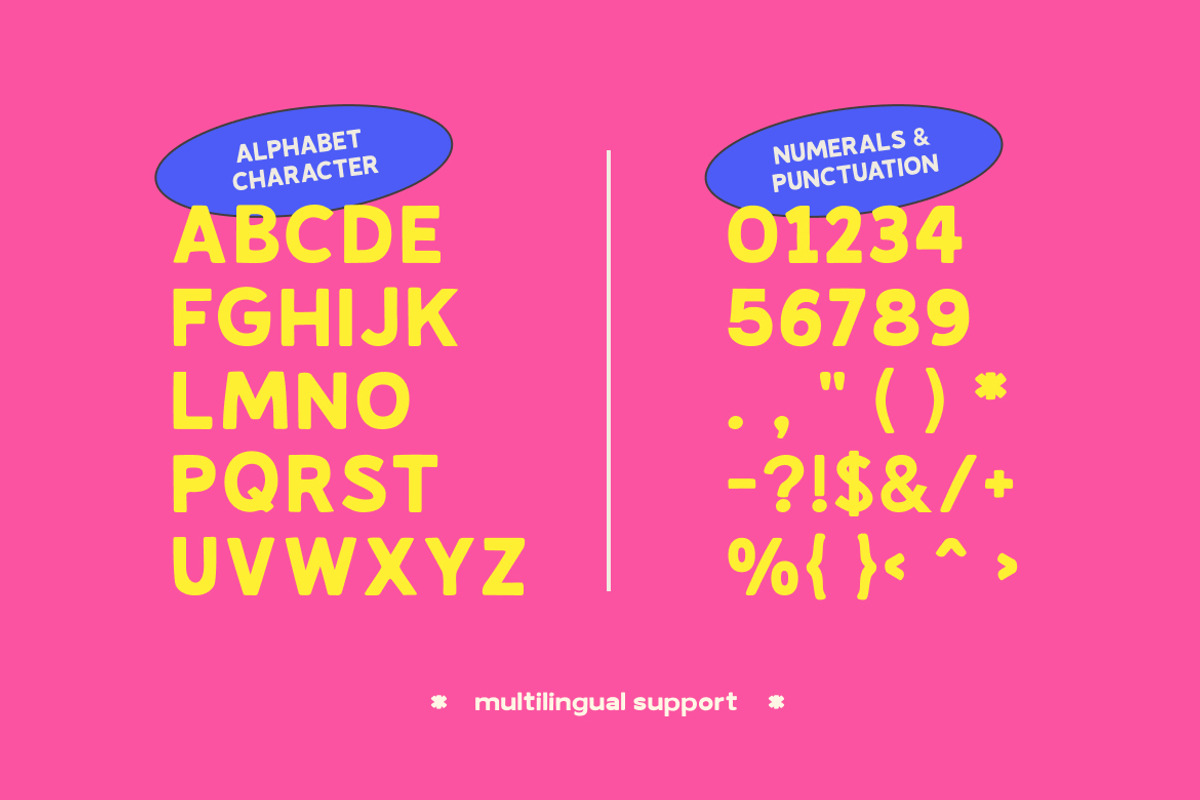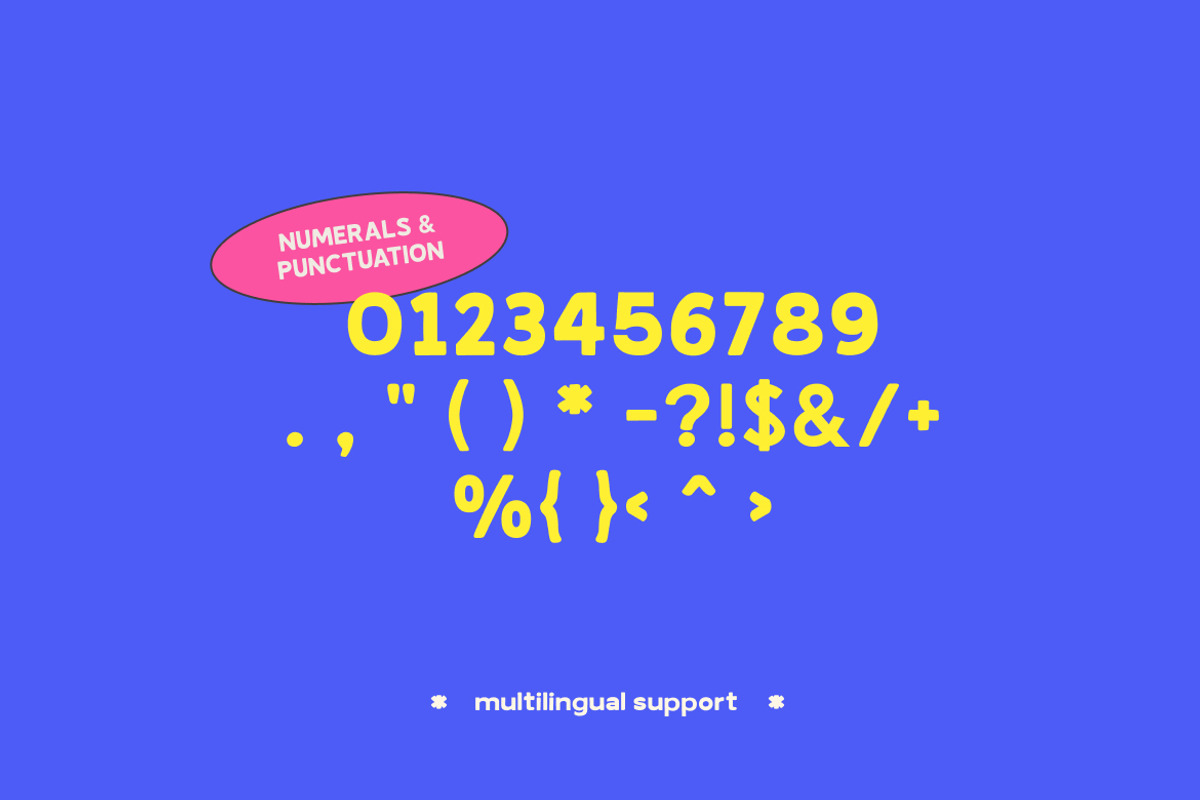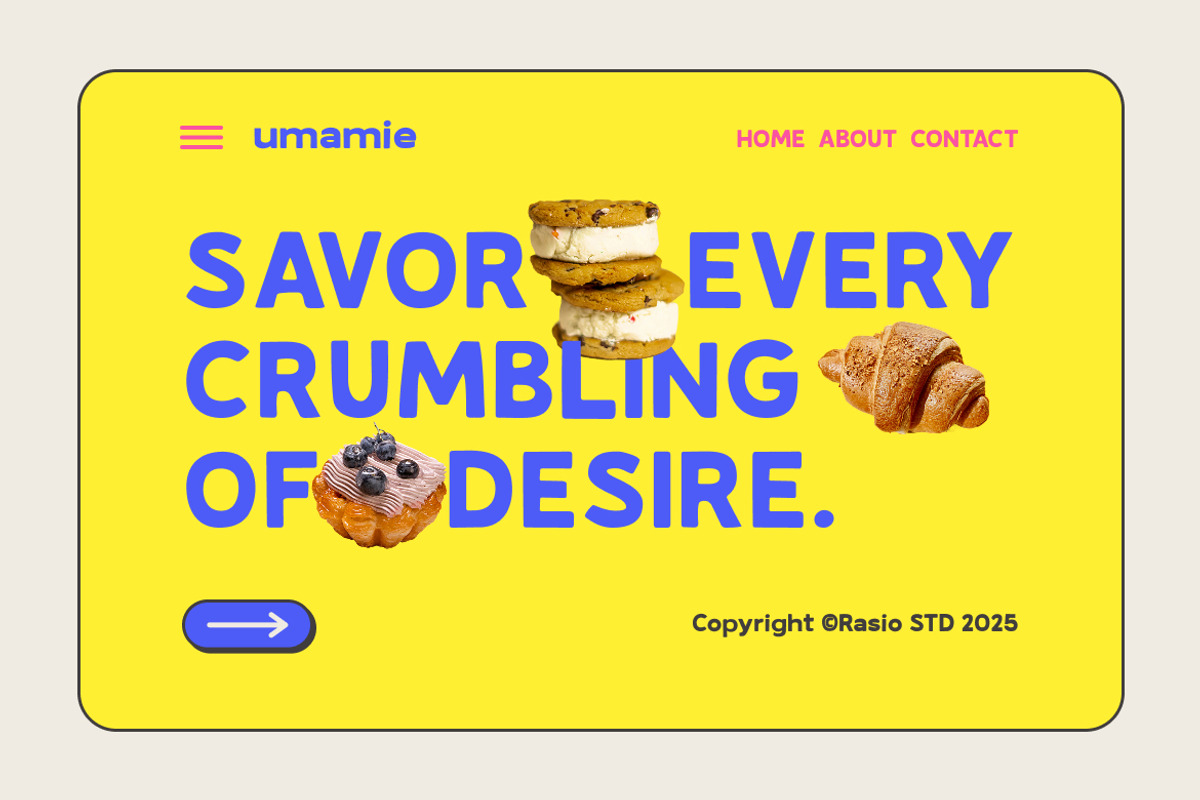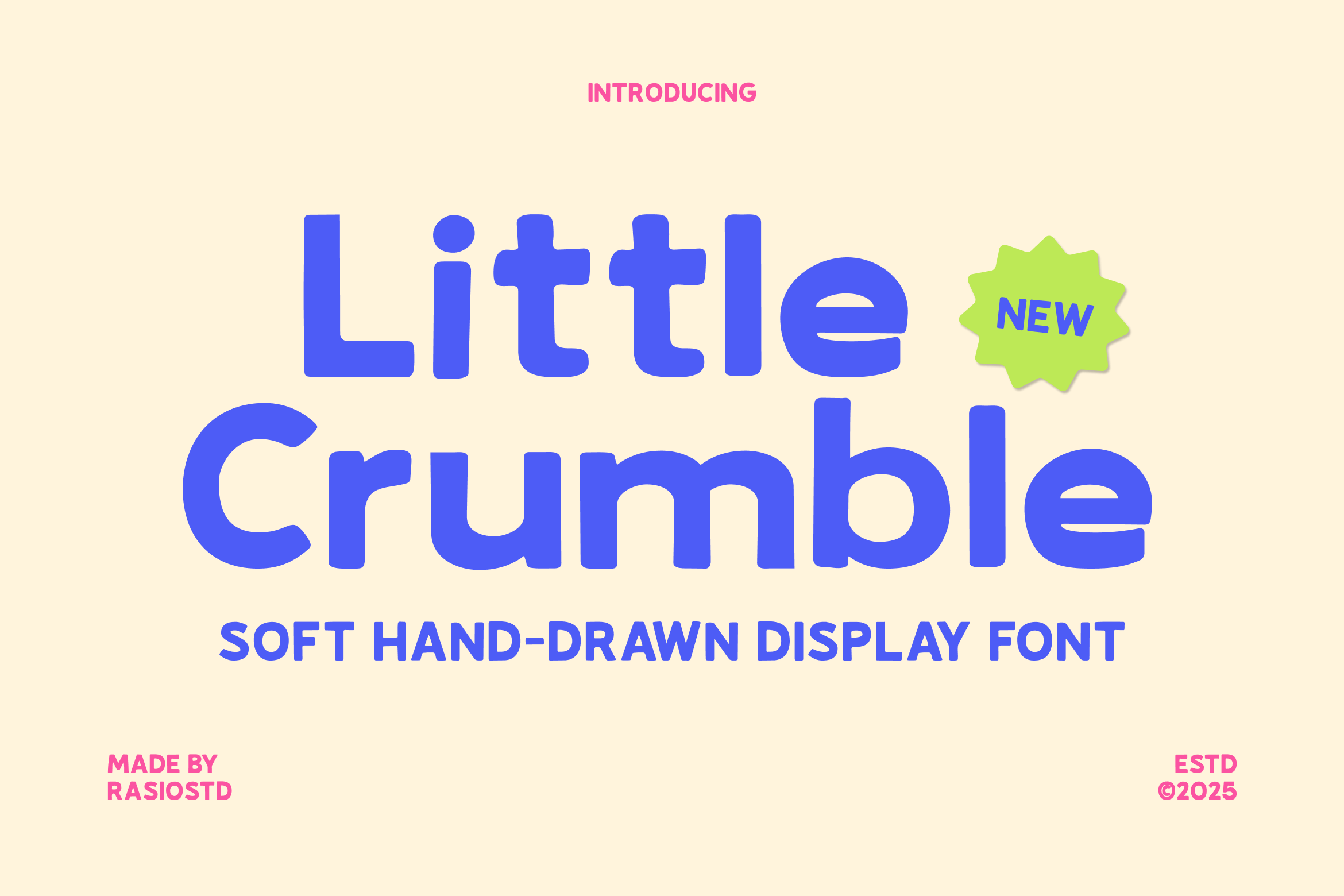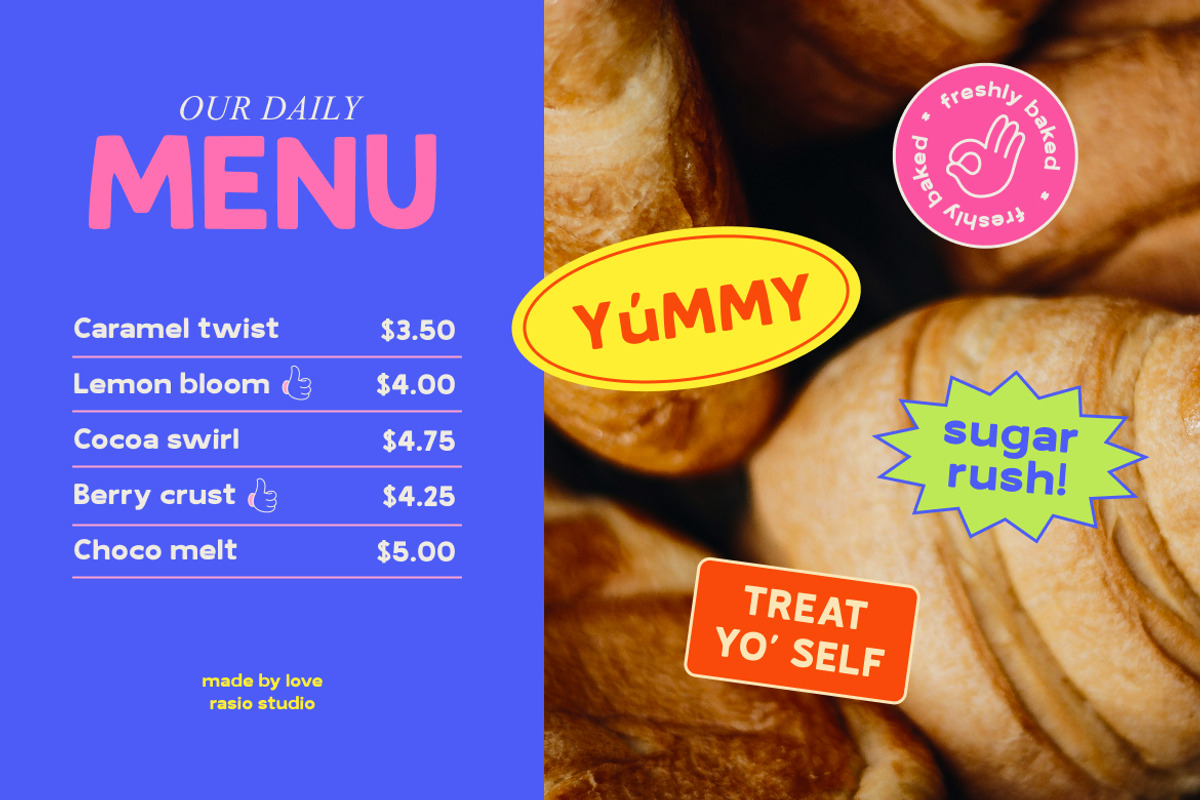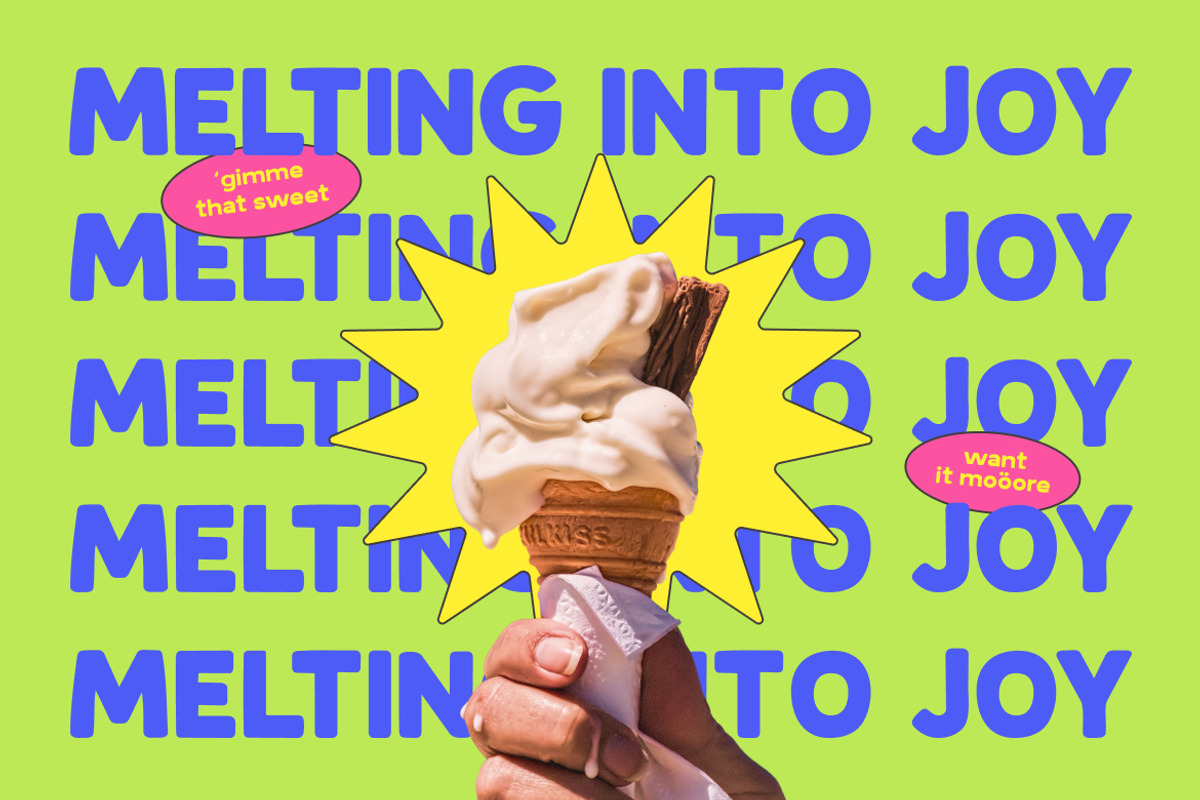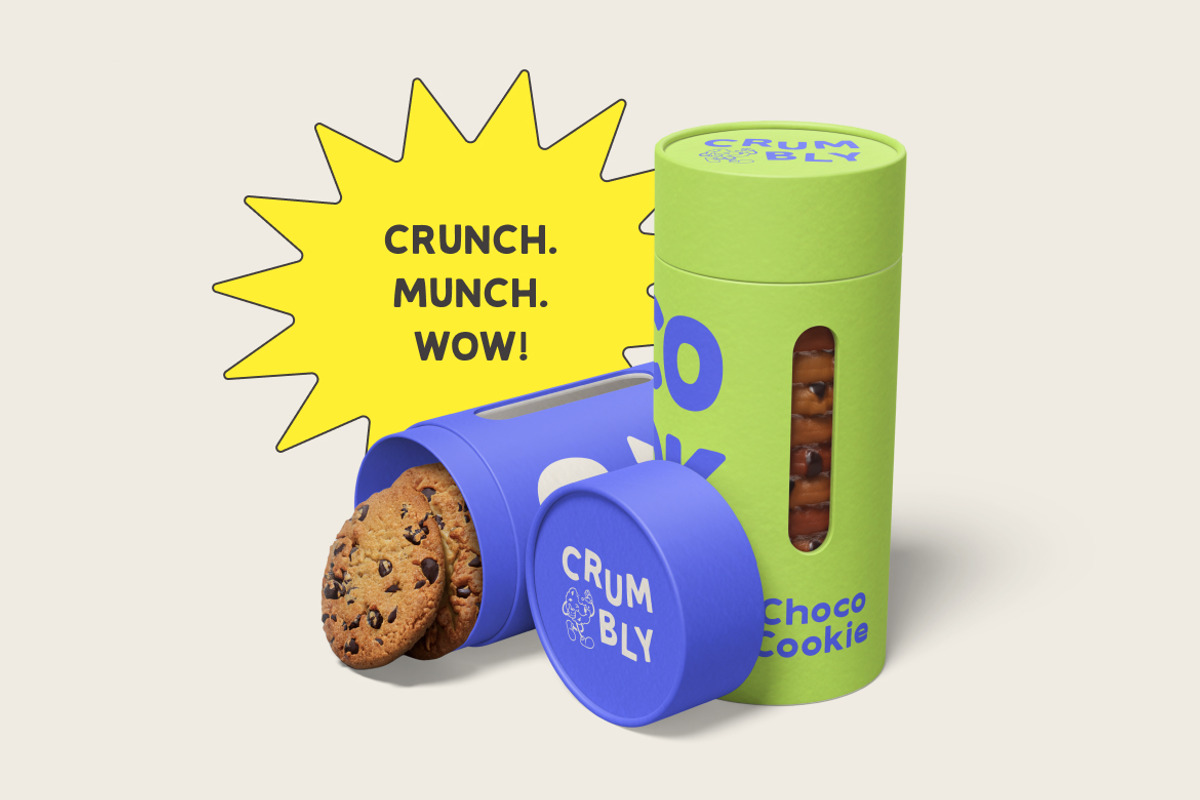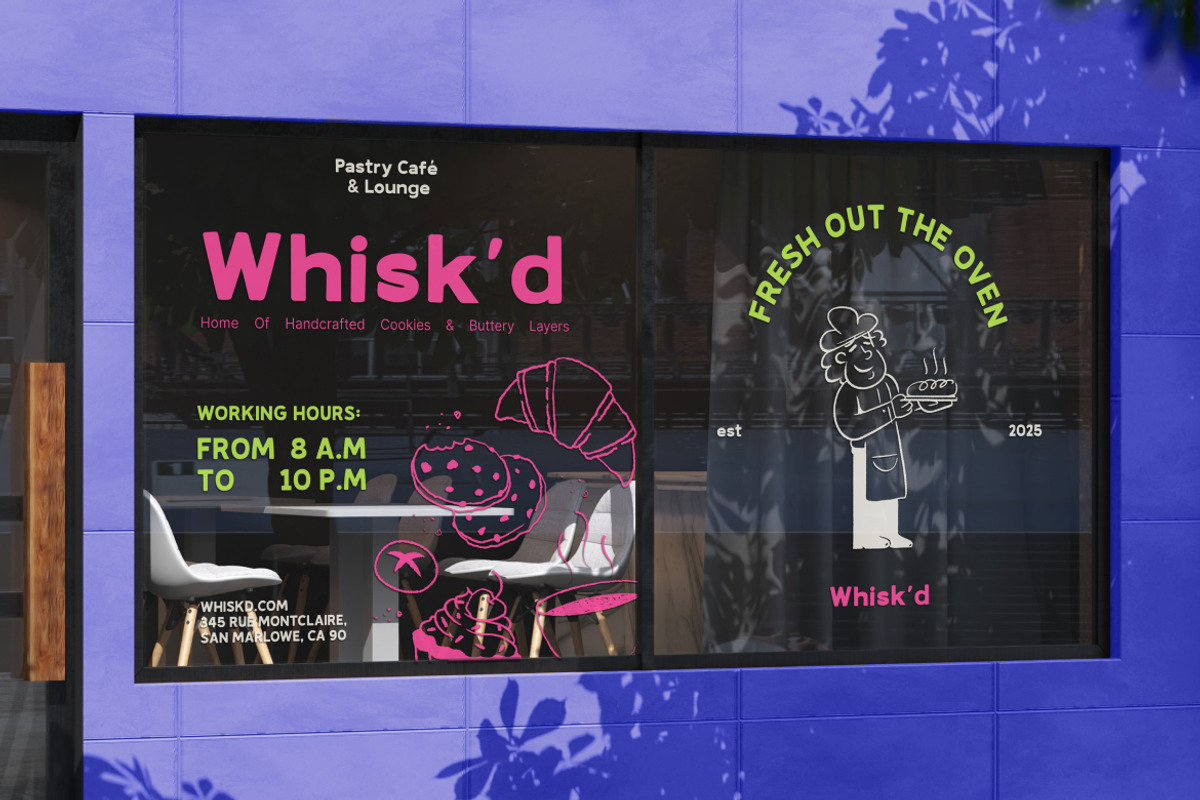
Little Crumble Soft Display Font
Little Crumble is a soft, hand-drawn display font with rounded corners and a playful feel. Its friendly character design and bold form make it perfect for children’s books, food packaging, cute branding projects, and cheerful web or app interfaces. Featuring all uppercase letters, numbers, punctuation, and multilingual support, this typeface adds a fun and approachable tone to any visual project.
Little Crumble is ideal for designers working on playful and friendly visuals for children’s products, educational tools, or snack and dessert packaging. With its rounded, bubbly shapes and hand-crafted feel, it suits any context that benefits from a soft, joyful personality whether for branding, digital design, or physical merchandise. It adds a human touch to fun-loving creative projects.
- Soft, hand-drawn letterforms with rounded edges for a friendly tone
- Bold sans serif style for high visibility and playful presence
- Irregular strokes to maintain a handcrafted, organic feel
- Whimsical shapes that evoke a childlike charm and fun personality
- Optimized spacing and structure for clarity across digital and print
- Children’s book covers and story titles
- Fun packaging for snacks, toys, or handmade goods
- Logo designs for playful or family-friendly brands
- Social media graphics with a cheerful vibe
- Greeting cards, stickers, and printable crafts
- Educational materials, posters, and infographics for kids
Add a sprinkle of fun, Little Crumble brings soft charm to every creative project